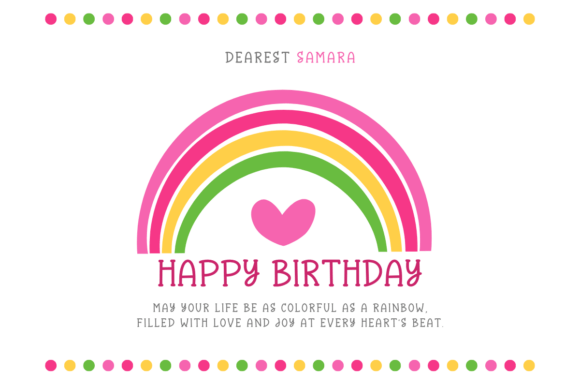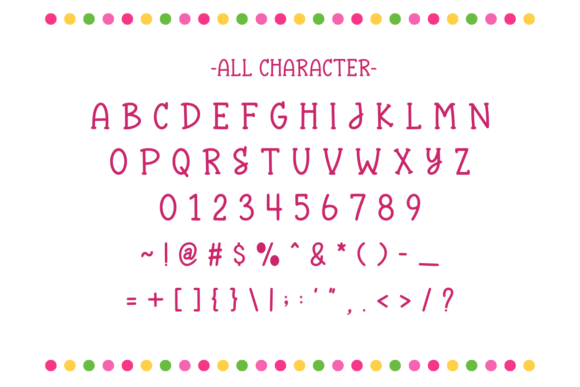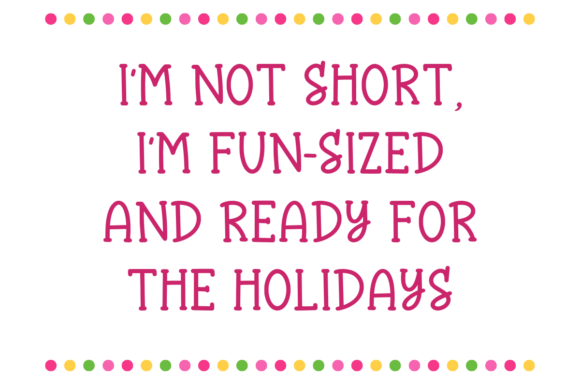
Playful Holiday Font
Playful Holiday is a fun and playful slab serif font that’s perfect for crafts, planners, KDP, stickers, greeting cards, and more. With its cute and friendly style, it works great for Cricut, sublimation, and creative DIY projects. Ideal for crafters, designers, and makers!